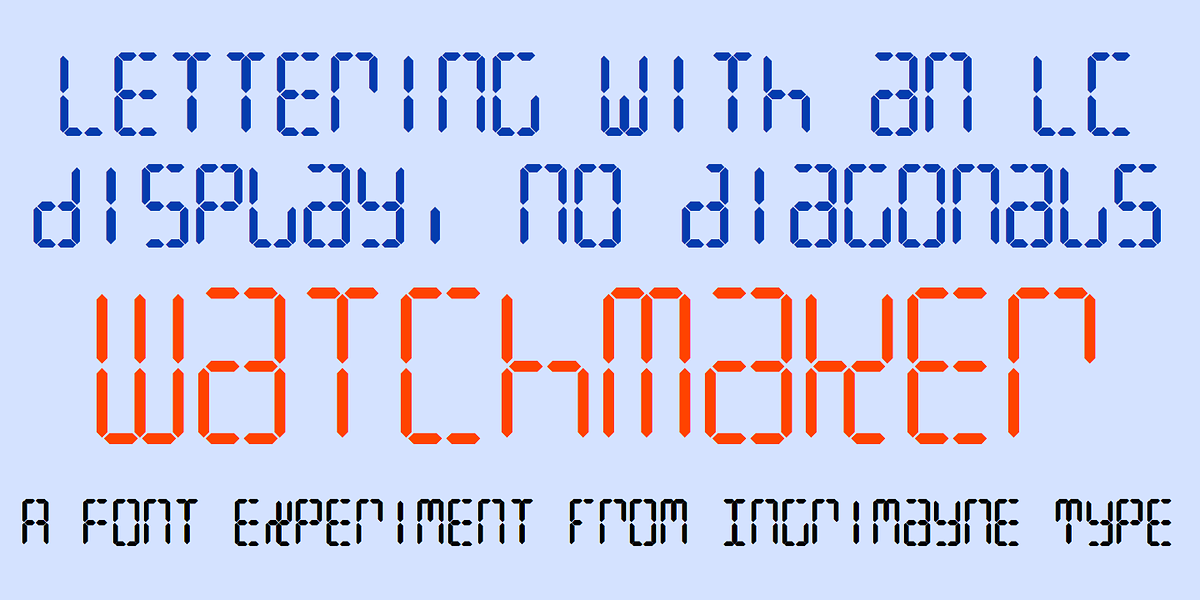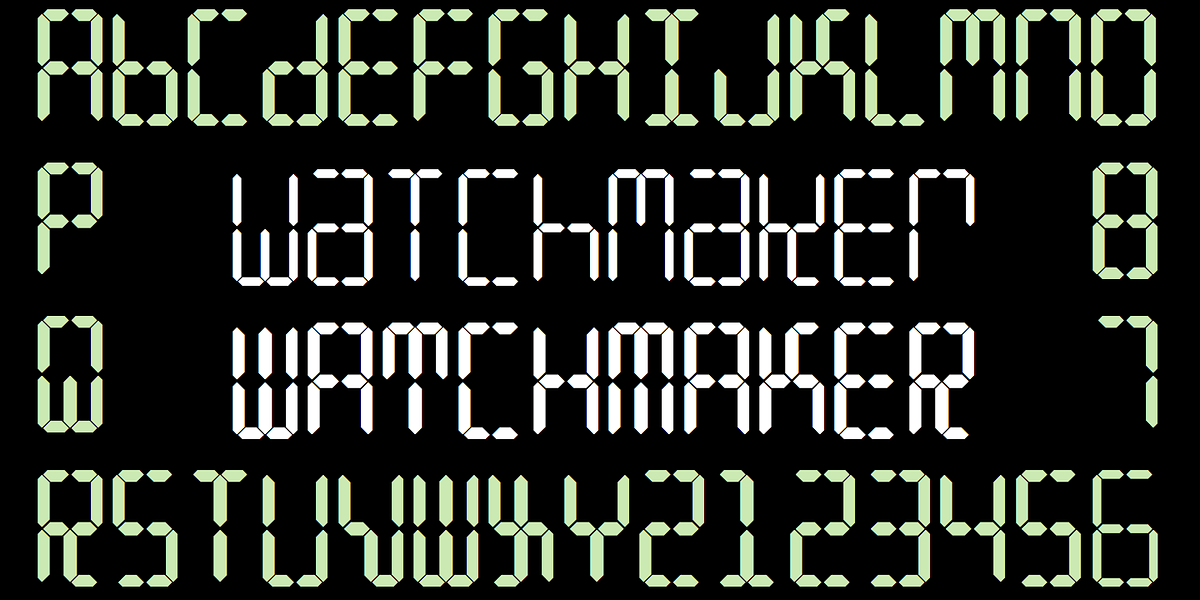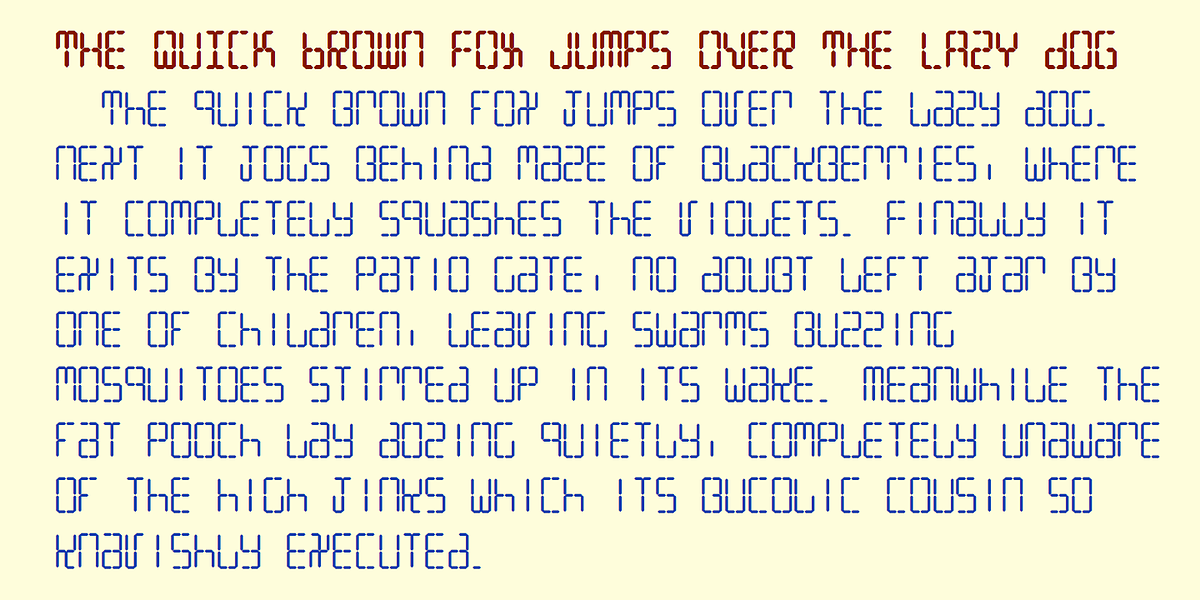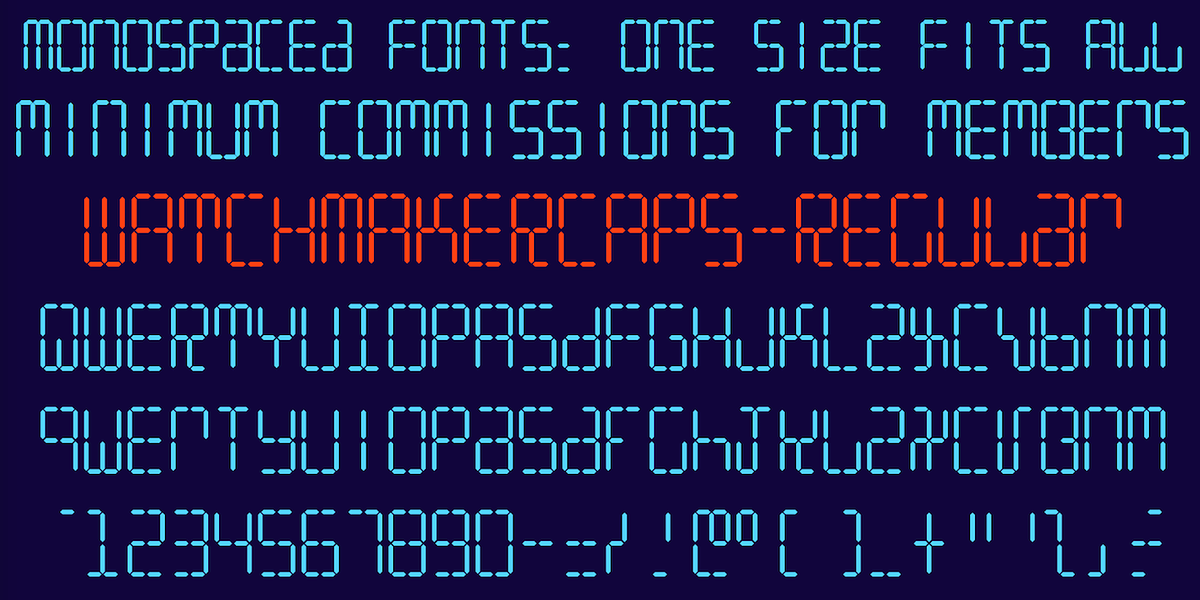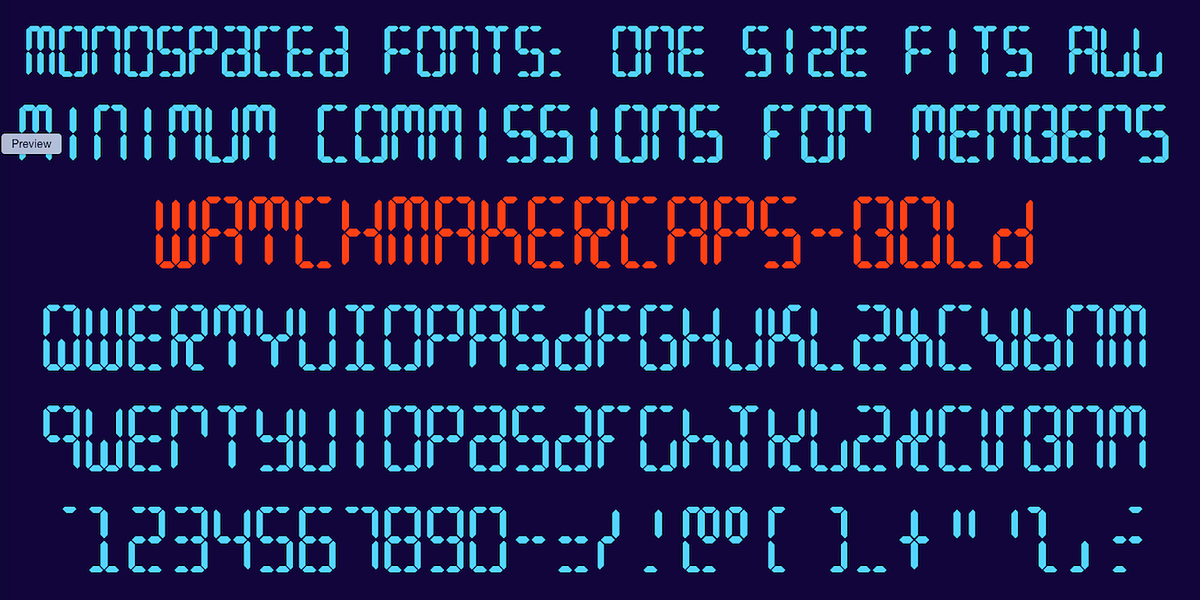
Watchmaker
Watchmaker is a pixel font specifically designed to mimic the limitations of simple LCD displays. It avoids using diagonals common in other LCD fonts, highlighting the inherent visual characteristics of these screens. The font comes in two weights: plain and bold, and its monospaced nature makes it well-suited for programming interfaces and digital display applications.